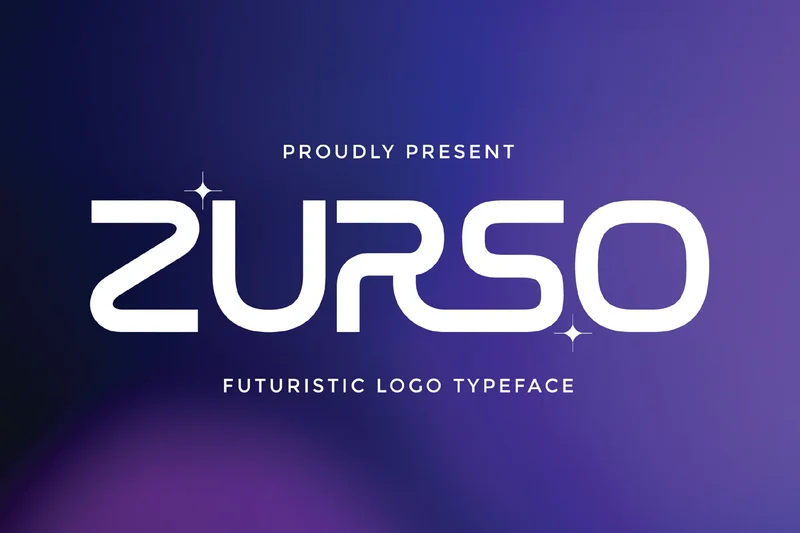
Sans Serif Zurso Futuristic font
Meet Zurso, a futuristic sans serif font designed to make technology-driven brands feel bold, precise, and unmistakably modern. With clean geometry, sharp rhythm, and confident spacing, Zurso delivers instant impact across presentations, startup decks, UI mockups, web hero titles, logos, and social graphics.
Engineered for clarity at any size, Zurso pairs a minimalist silhouette with future-forward character shapes—perfect for industries like software, SaaS, AI, fintech, gaming, cybersecurity, and product launches. Whether you’re building a keynote deck or a landing page headline, Zurso communicates innovation with polished professionalism.